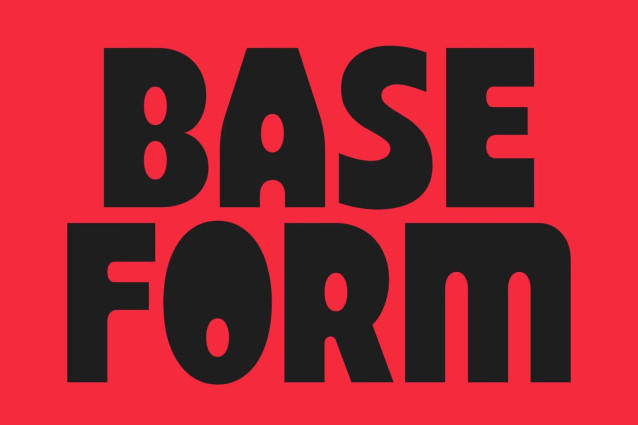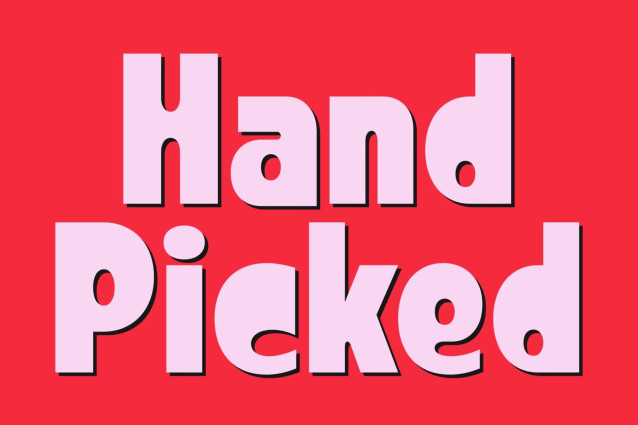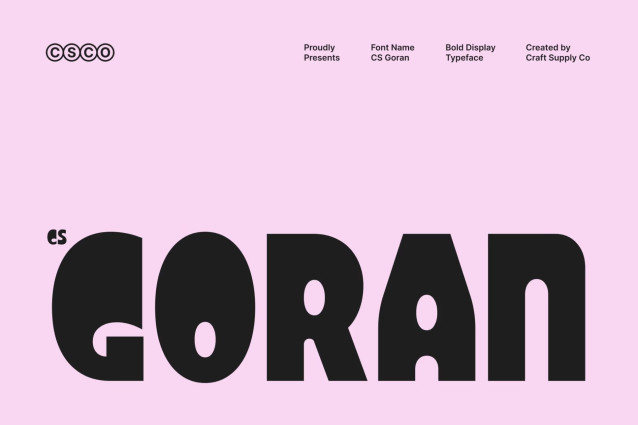
CS Goran – Bold Sans Serif Font
CS Goran – Bold Display Sans Serif Font: Where Chunky Geometry Meets Vintage Playfulness
Chunky Proportions with Friendly Impact
This is a bold display sans serif font featuring rounded geometric forms and chunky proportions that create an inviting yet commanding presence. Its solid letterforms deliver exceptional visual weight while maintaining a friendly and approachable personality, making it ideal for eye-catching typography that stands out with confidence.
Playful Vintage Character with Modern Appeal
Inspired by classic vintage display typography, this font brings nostalgic charm into a contemporary design context. Its rounded shapes soften the bold structure, creating a playful character that feels warm, expressive, and full of personality. This blend of retro influence and modern simplicity makes the font versatile across a wide range of creative applications.
Bold Typography with Creative Energy
By combining geometric precision with playful proportions, that creates typography that is both memorable and highly expressive. Its bold construction gives logos and headlines a strong visual foundation, while its vintage-inspired personality adds originality and charm. The result is a display typeface that feels energetic, distinctive, and effortlessly engaging.